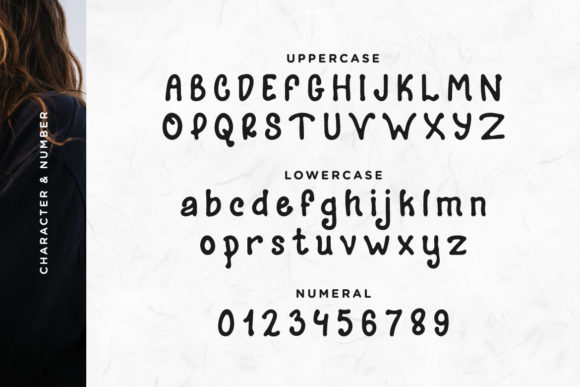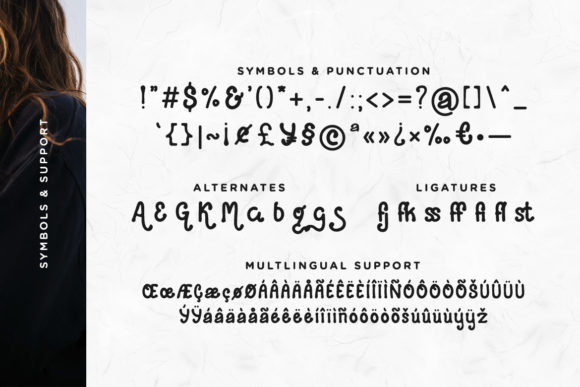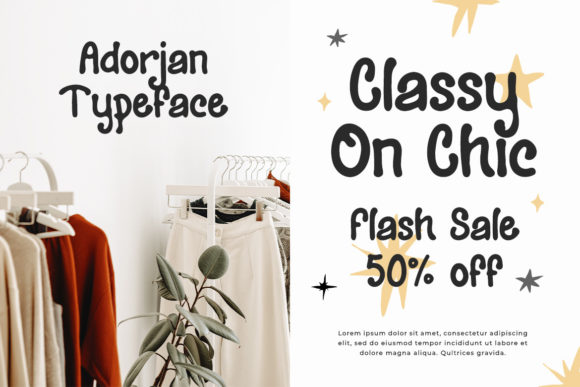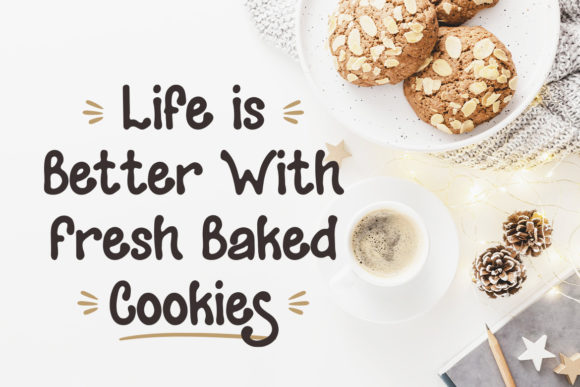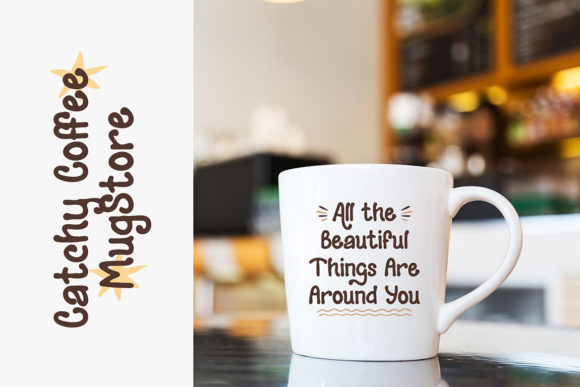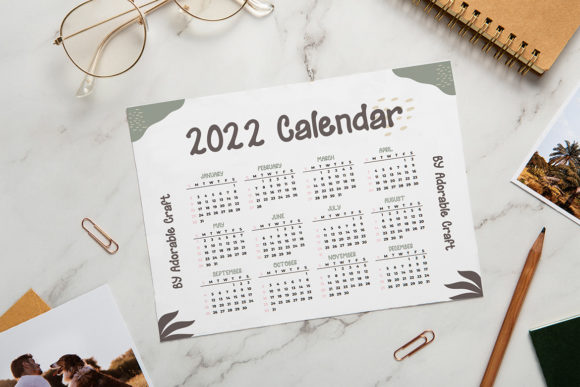
Introducing Adorjan Font: The Sweet and Neat Paint Brushed Handwritten Font
Are you a designer or crafter looking for a font that adds a personal touch to your designs? Look no further than Adorjan Font, a sweet and neat paint brushed handwritten font that’s perfect for a variety of projects. In this article, we’ll dive into the features and benefits of Adorjan Font, and explore how it can elevate your designs.
What is Adorjan Font?
Adorjan Font is a beautiful, handcrafted font that’s designed to bring a touch of warmth and personality to your designs. With its dainty and joyful feel, this font is ideal for writing neat cards, album covers, quotes, cafe menus, coffee-themed designs, greeting cards, and any other project that requires a personalized touch.
Key Features of Adorjan Font
- Sweet and Neat Design: Adorjan Font features a sweet and neat design that’s perfect for creating elegant and sophisticated designs.
- Paint Brushed Handwritten Style: The font’s paint brushed handwritten style gives it a unique and charming feel that’s sure to capture the attention of your audience.
- Dainty and Joyful: Adorjan Font is designed to be dainty and joyful, making it perfect for designs that require a touch of whimsy and playfulness.
- Highly Versatile: This font is highly versatile and can be used for a wide range of projects, from cards and album covers to quotes and cafe menus.
Benefits of Using Adorjan Font
So, why should you choose Adorjan Font for your designs? Here are just a few benefits of using this beautiful font:
- Adds a Personal Touch: Adorjan Font adds a personal touch to your designs, making them feel more unique and special.
- Enhances Readability: The font’s clear and elegant design makes it easy to read, even at small sizes.
- Perfect for Branding: Adorjan Font is perfect for branding projects, such as logos, business cards, and letterheads.
- Great for DIY Projects: This font is also great for DIY projects, such as scrapbooking, journaling, and crafting.
How to Use Adorjan Font
Using Adorjan Font is easy! Here are a few tips to get you started:
- Pair it with Other Fonts: Adorjan Font pairs well with other fonts, such as sans-serif fonts and script fonts.
- Use it for Headings and Titles: The font’s elegant design makes it perfect for headings and titles.
Design Ideas Using Adorjan Font
- Cafe Menu: Use Adorjan Font to create a beautiful and elegant cafe menu that will make your customers feel special.
- Greeting Cards: Create personalized greeting cards using Adorjan Font and add a special touch to your messages.
- Album Covers: Use Adorjan Font to create stunning album covers that will make your music or photography stand out.
- Quotes and Posters: Add a touch of elegance to your quotes and posters using Adorjan Font.
In conclusion, Adorjan Font is a beautiful and versatile font that’s perfect for designers and crafters looking to add a personal touch to their designs. With its sweet and neat design, paint brushed handwritten style, and dainty and joyful feel, this font is ideal for a wide range of projects. Whether you’re creating cards, album covers, quotes, or cafe menus, Adorjan Font is sure to elevate your designs and make them stand out.